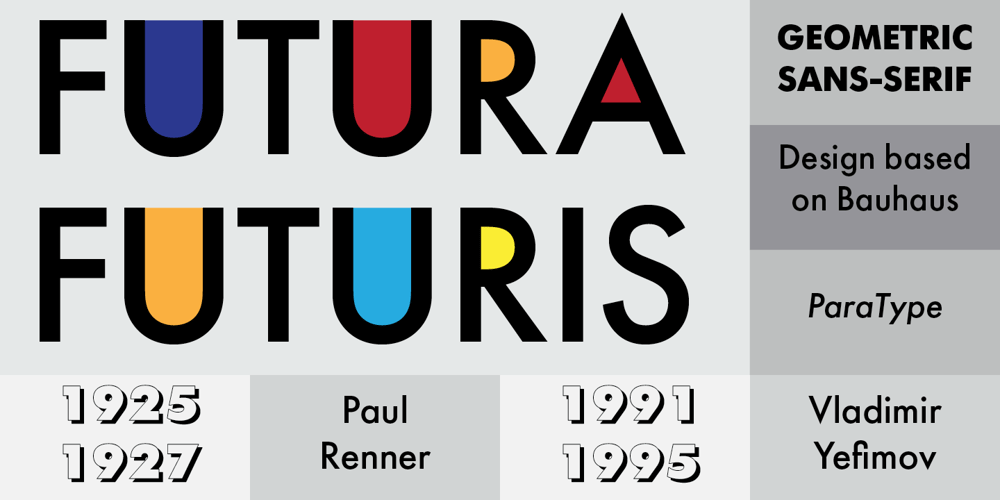
Futura Futuris
Futura Futuris font
Futura Futuris Font Family was designed by Alexander Tarbeev, Vladimir Yefimov, Paul Renner and published by ParaType. Futura Futuris contains 12 styles and family package options. Futura is a classic geometric sans serif, one of the crucial typefaces of the 20th century. It remains relevant today and is widely used in logos, headings, web and print.Futura was designed by Paul Renner for Bauersche Gießerei (Bauer) in 1927. The typeface is based on simple geometric forms and is close in the aesthetics to 1920s-30s constructivism and the Bauhaus.The Cyrillic version of Futura was designed by Vladimir Yefimov and released by Paratype.